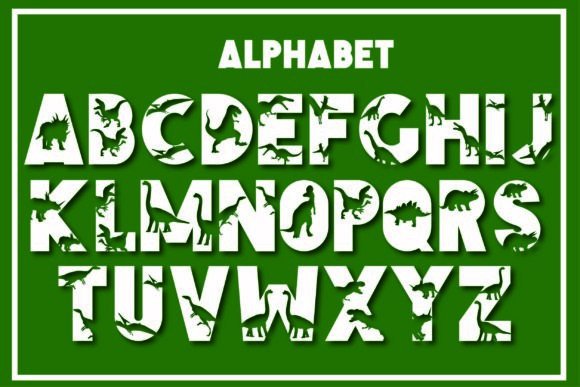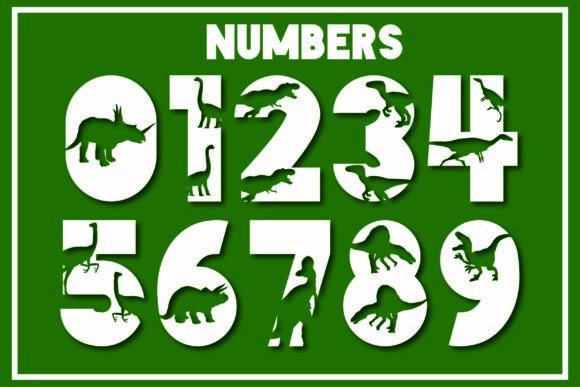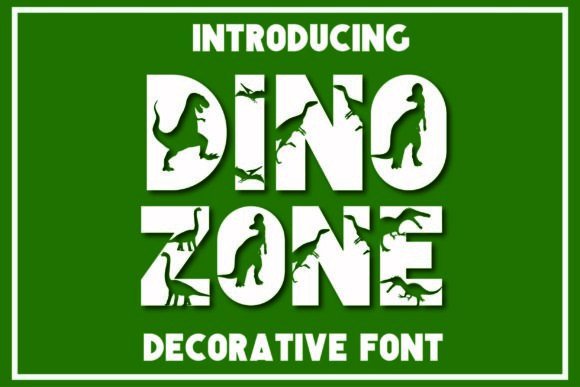
Dinozone Font: Unleash Your Creativity with Lovable Dinosaur Ornaments
Are you tired of using the same old fonts for your craft projects? Look no further than the Dinozone Font, a fun and unique decorative font that’s sure to add a touch of excitement to your designs. This original font features lovely dinosaurs as ornaments, making it perfect for a wide range of crafty ideas, from letterheads and titles to stationery.
What is Dinozone Font?
Dinozone Font is a decorative font that showcases a collection of adorable dinosaurs, each one meticulously designed to add a playful touch to your projects. The font is perfect for designers, crafters, and anyone looking to add a bit of whimsy to their work. Whether you’re creating a children’s book, a craft project, or a fun party invitation, Dinozone Font is sure to delight.
Key Features of Dinozone Font
- Unique and Original Design: Each dinosaur ornament is carefully crafted to ensure a one-of-a-kind look that’s sure to stand out.
- Fun and Playful: The font’s playful design makes it perfect for projects aimed at children or those who are young at heart.
- Versatile: Use Dinozone Font for a wide range of projects, from letterheads and titles to stationery and more.
- Easily Customizable: The font is easy to use and customize, allowing you to adjust the size, color, and style to suit your needs.
Uses for Dinozone Font
Dinozone Font is perfect for a variety of projects, including:
- Craft Projects: Add a touch of personality to your craft projects, such as scrapbooking, card making, and DIY gifts.
- Children’s Books and Materials: Create engaging and interactive children’s books, activity sheets, and educational materials.
- Party Invitations and Decorations: Make your party invitations and decorations stand out with a fun and playful font.
- Stationery and Letterheads: Add a personal touch to your stationery, letterheads, and business cards.
Why Choose Dinozone Font?
With so many fonts available, why choose Dinozone Font? Here are just a few reasons:
- Unique and Exclusive: Dinozone Font is a one-of-a-kind font that’s sure to set you apart from others.
- High-Quality Design: Each dinosaur ornament is carefully designed to ensure a high-quality look that’s sure to impress.
- Ease of Use: The font is easy to use and customize, making it perfect for designers and crafters of all skill levels.
Tips and Tricks for Using Dinozone Font
Here are a few tips and tricks for getting the most out of Dinozone Font:
- Experiment with Different Sizes and Colors: Try out different sizes and colors to see what works best for your project.
- Mix and Match with Other Fonts: Combine Dinozone Font with other fonts to create a unique and interesting look.
- Use it for Headings and Titles: Use Dinozone Font for headings and titles to add a touch of personality to your project.
| Font Name | Dinozone Font |
| Author | CHEETAH DOODLE |